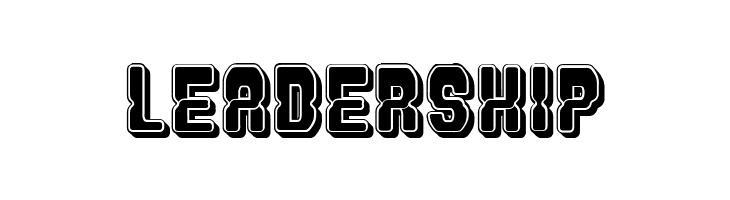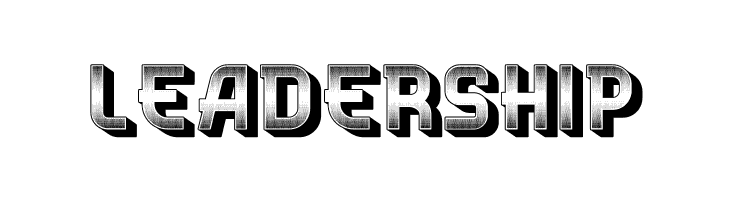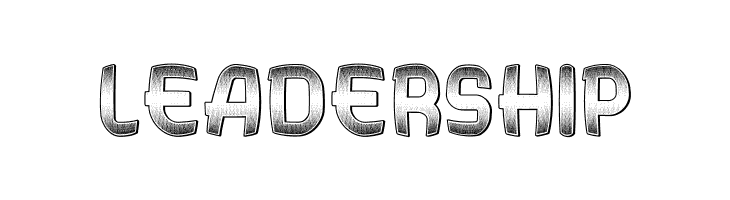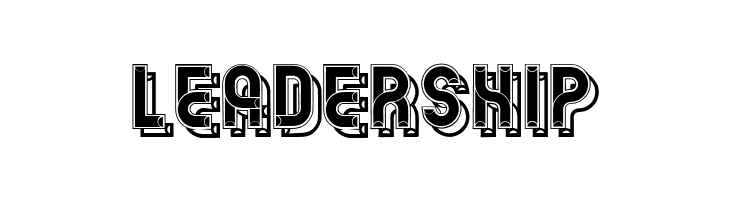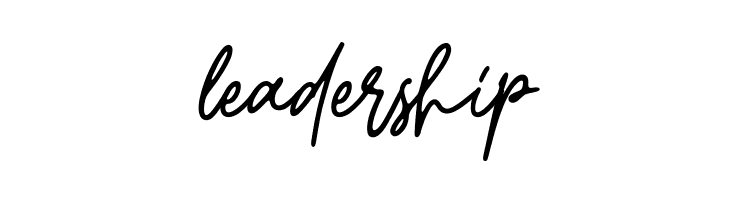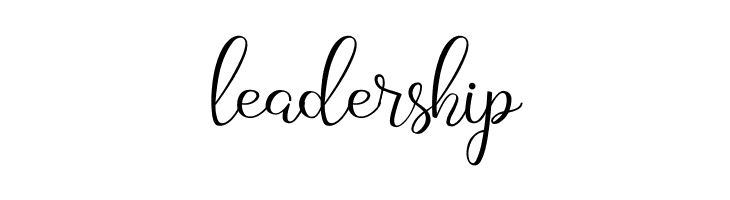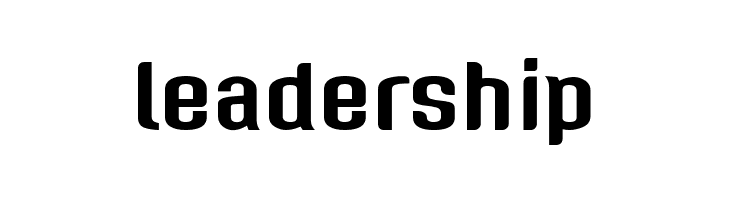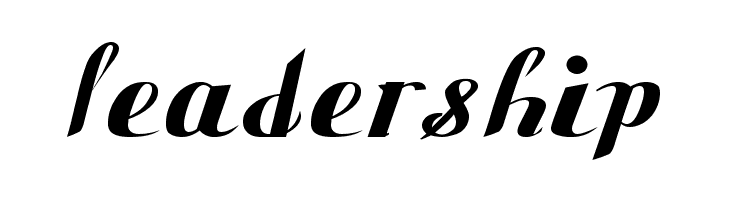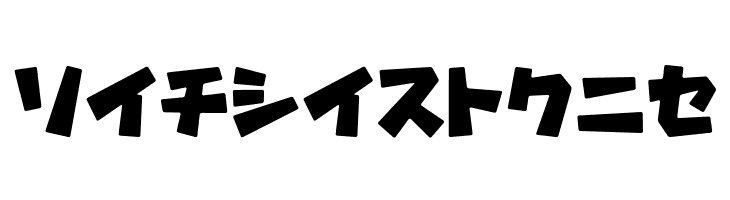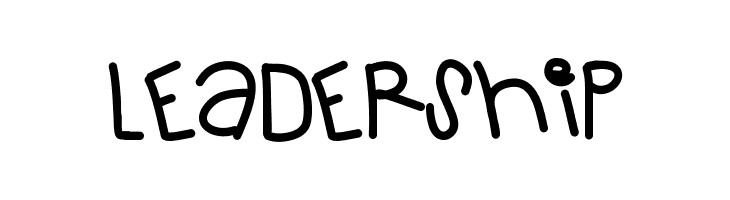
• Gaseous Power Comic Regular
A bold, comic-inspired font with textured shading and playful energy.
• Gaseous Power Regular
A bold, 3D font with an industrial, retro-futuristic style.
• Gastino
A bold, geometric font with sharp angles and a modern look.
• Gatheline Signature
An elegant, cursive handwritten font with smooth, flowing lines.
• Gauche Display
A bold, dynamic script font with elegant curves and dramatic angles.
• GavadonUltraKt
A bold, playful font with angular, cartoonish characters.
• Gawain
A bold, decorative font with a medieval, gothic-inspired design.
• Gayacos Primaria Bastarda
• Gazelle Regular
A bold, three-dimensional font with geometric and structured uppercase characters.
• Ge Body
A bold, modern sans-serif typeface with geometric shapes and clean lines.
• Ge Body
• Geek Speek
• Geisty Demo
A graceful and elegant script font with flowing, cursive lines.
• Gelatin Regular
A bold, decorative font with a three-dimensional effect and vintage-modern aesthetics.
• GelatoParty
A playful, handwritten font with a whimsical and friendly style.
• Gemessene Light Regular
A modern, geometric font with sharp angles and smooth curves.
• Gemessene Regular
A bold, geometric font with a modern, industrial feel and outlined characters.
• Gen-Light
A clean, modern typeface with uniform strokes and balanced spacing.
• GENERATION Bold
A bold, geometric font with a 3D effect and consistent rounded edges.
• GENERATION Bold Italic
A bold, italicized font with a strong, dynamic presence and shadow effect.
• GENERATION Italic